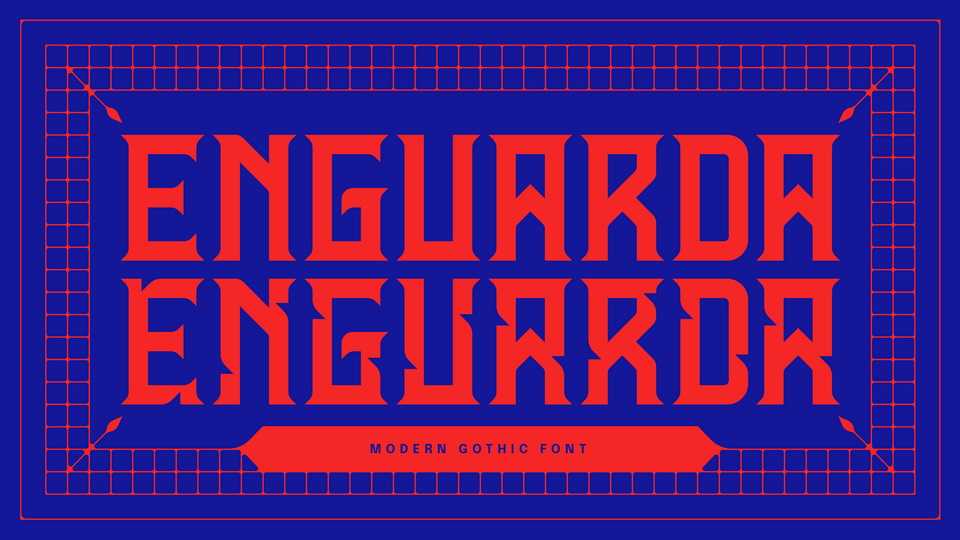
Download Enguarda typeface, a display font family in two styles, designed and based on the western motifs surrounding oriental design and typography while in same time going for a modern gothic look.
Designer: Andros Souza